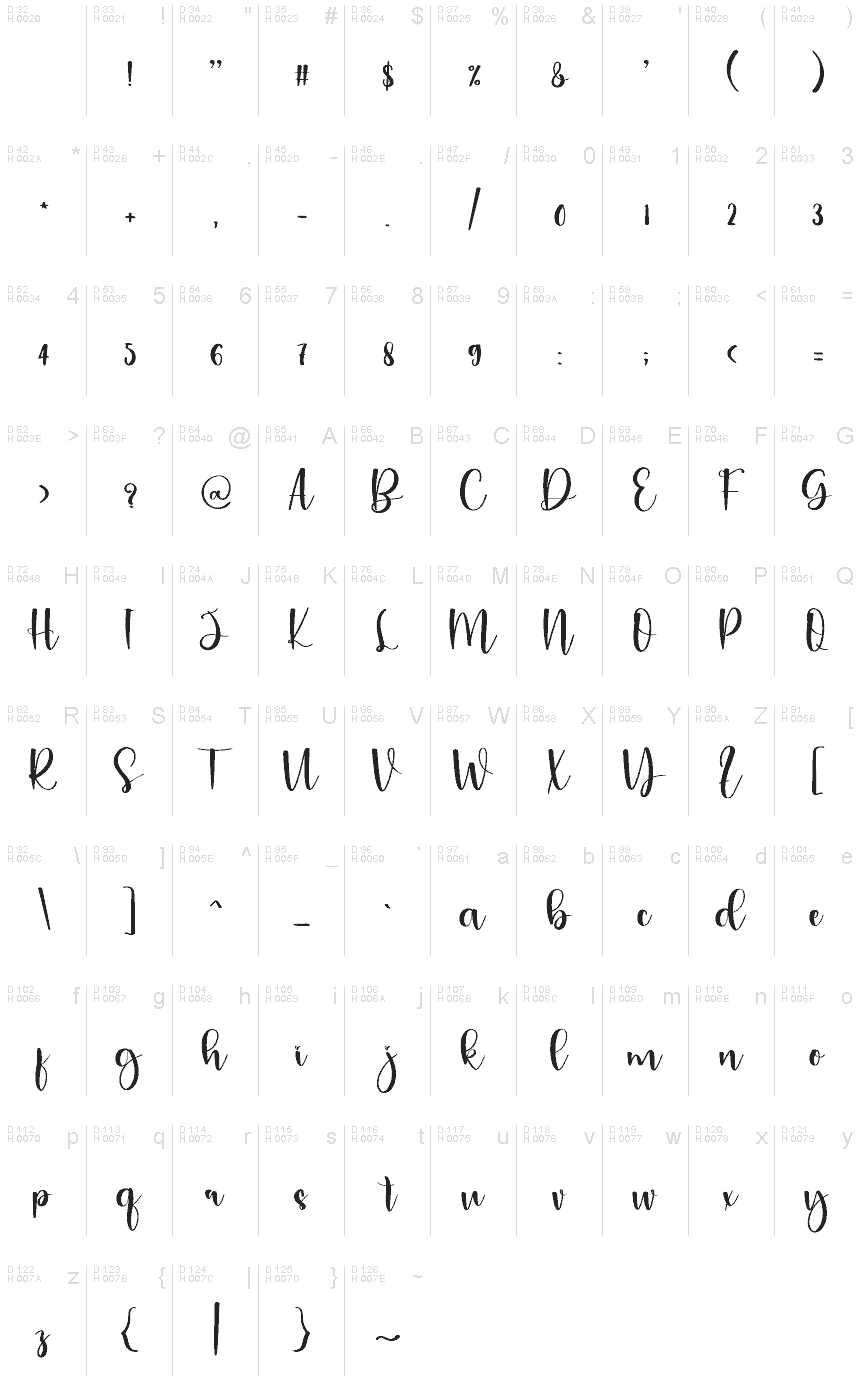
Sountime
Sountime font is a handwritten typeface designed by PiPi Creative. The romantic letters are connected with a decorative line that makes the design look personal and elegant. Use this flowing font in posters, branding projects, advertisements, and more.